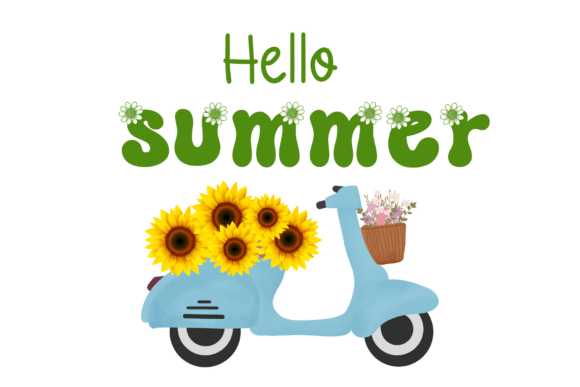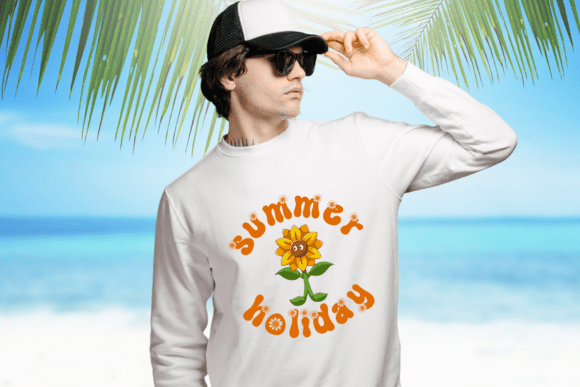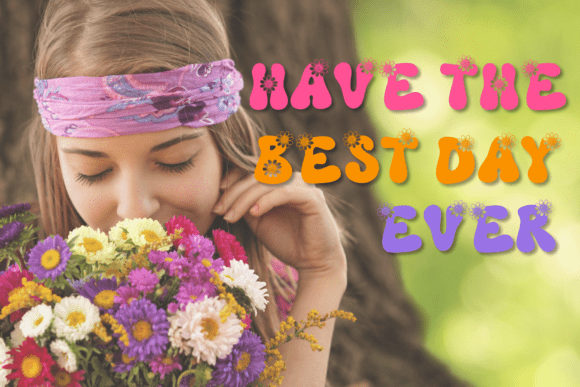
Retro Sunflower Font
Retro Sunflower is a cute and playful decorative font. Use it to add that special retro touch to any design idea you can think of! Masterfully designed to become a true favorite, this font has the potential to bring each of your creative ideas to the highest level!